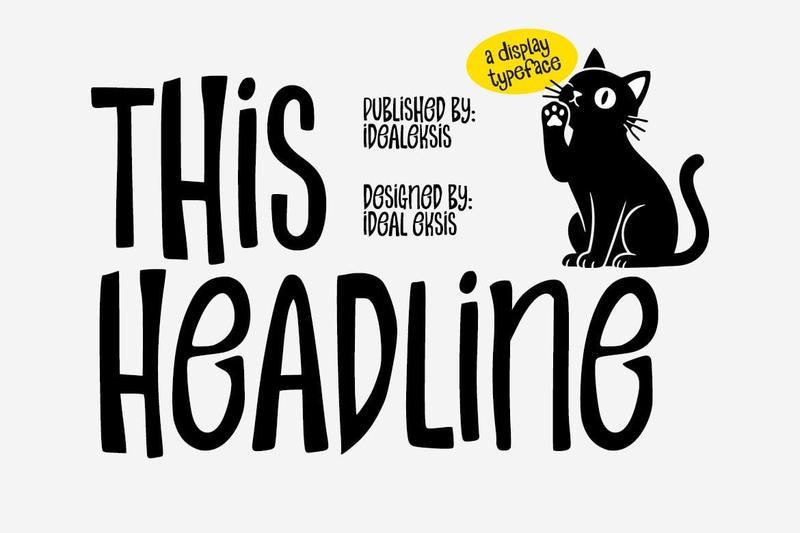
This Headline GM58HYP
This display typeface features bold, chunky letterforms with an intentionally irregular and bouncy baseline, giving it a lively and friendly character. The strokes are thick and rounded, reminiscent of a hand-drawn marker or brush, but with a solid, confident presence. Each character possesses a unique, slightly imperfect charm, contributing to its whimsical appeal. The overall weight is heavy, ensuring high impact and readability at larger sizes.